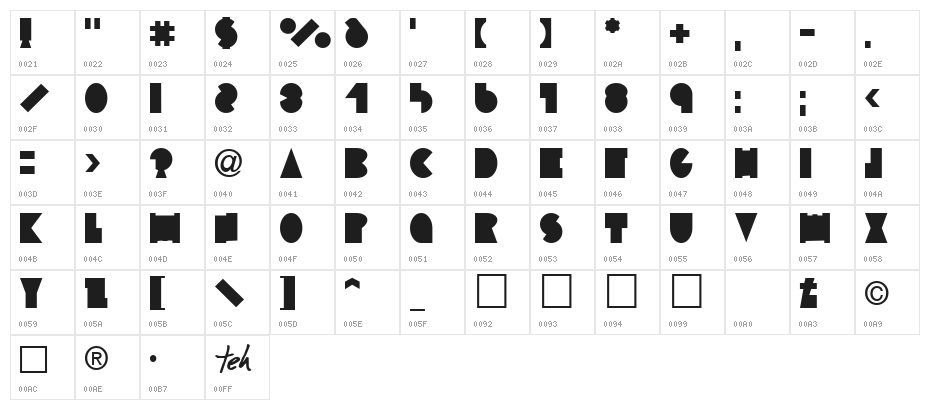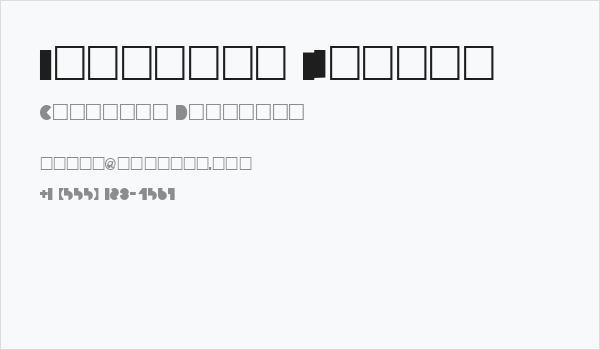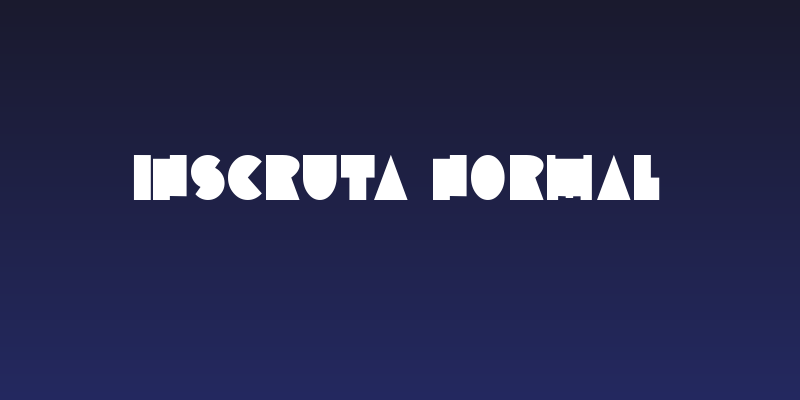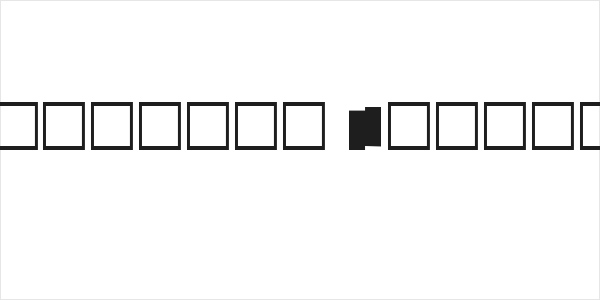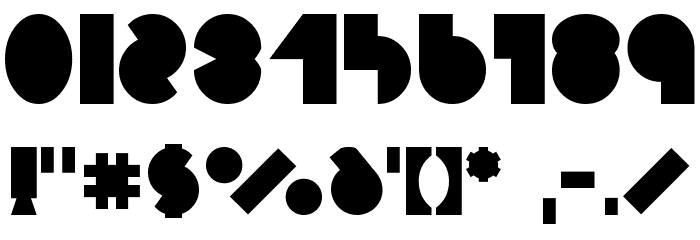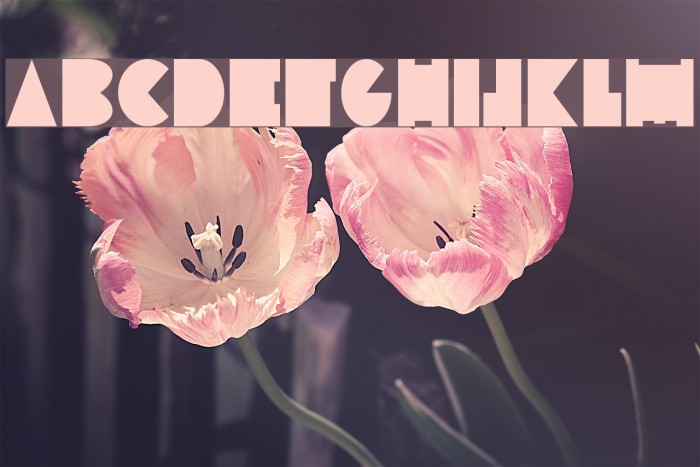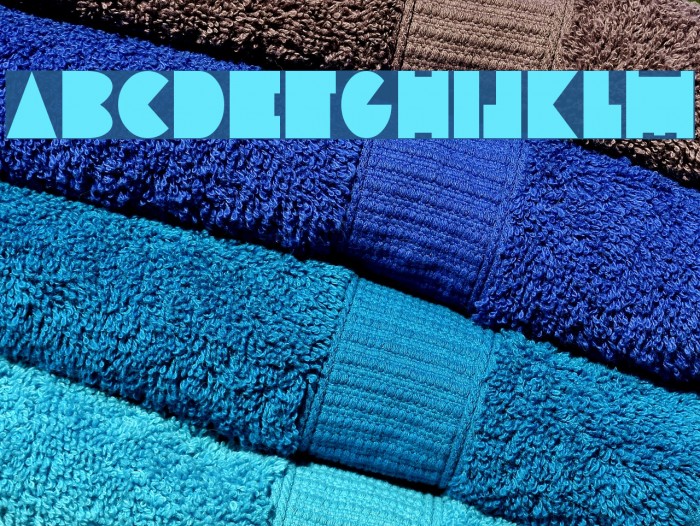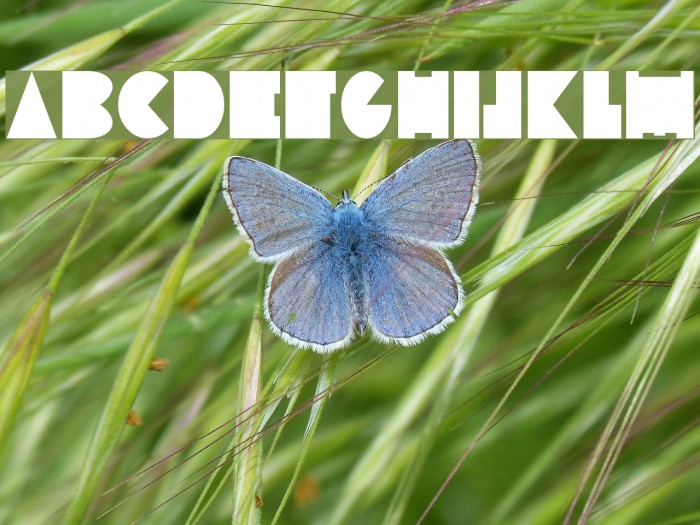
Inscruta Normal Font
Inscruta Normal Description
This font features a bold and geometric design, characterized by its heavy use of solid shapes and sharp angles. The uppercase letters are crafted with a distinct blocky appearance, creating a strong visual impact. The numbers and special characters follow the same bold style, ensuring consistency throughout. The font's unique style makes it ideal for attention-grabbing headlines and modern design projects. Its geometric nature gives it a futuristic feel, while the boldness ensures it stands out in any context.
| Proposed Projects | Ideal for posters, logos, branding, and any project requiring a bold, modern look. |